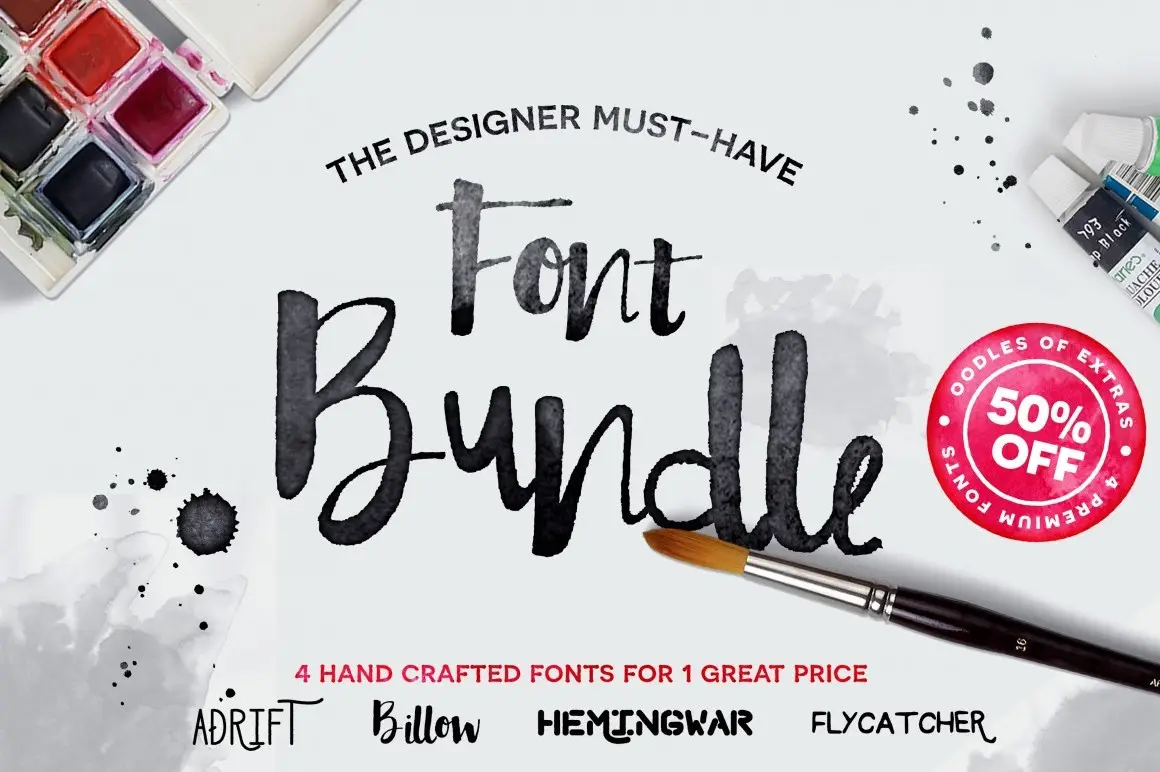
It's official, after months of hand crafting each of these typefaces I've bundled them up and slapped a sweet price tag on em! If you love hand lettering, this Font Bundle is for you! Perfect for creating logos, typography, and prints with that hand-drawn aesthetic, the Hand Crafted Font Bundle is filled with everything you need to do get the job done!
HERE'S WHAT YOU GET:
• Billow Font + Extras
• Hemingwar Font Family (3 Weights)